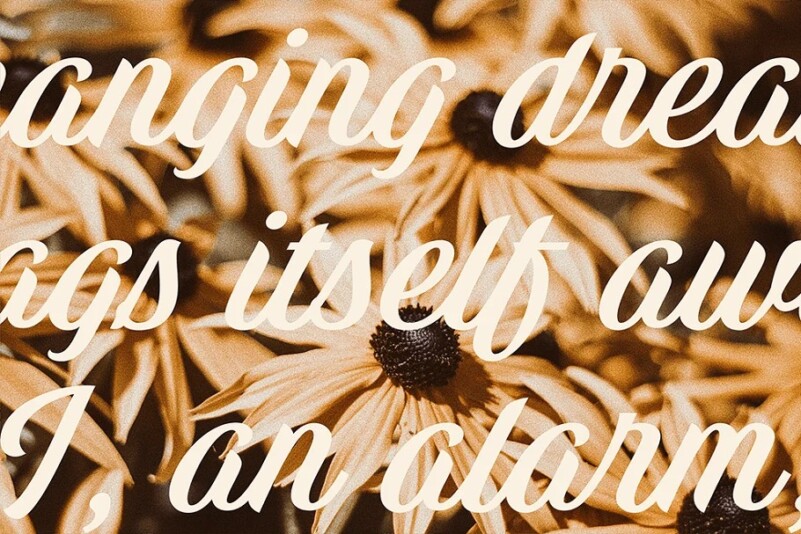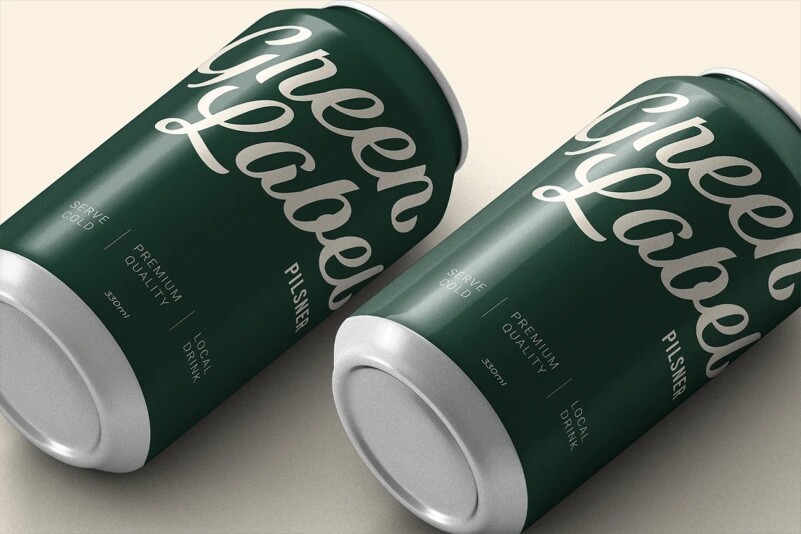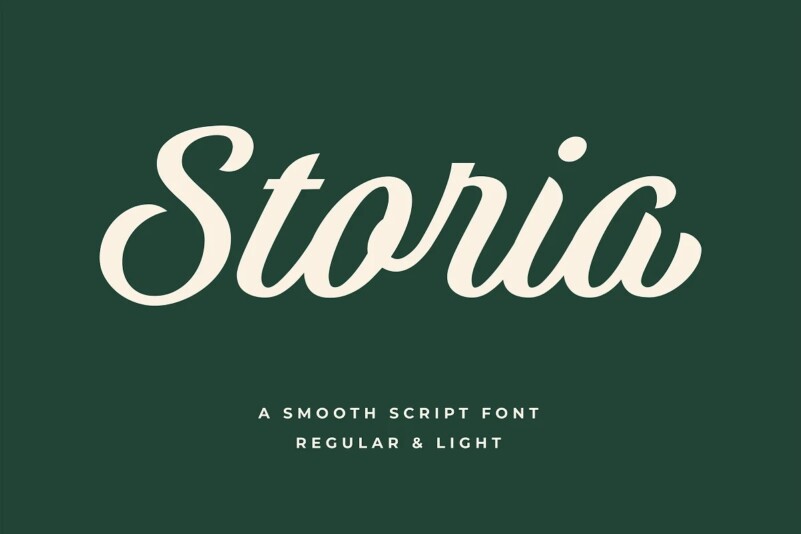
Storia Font
Storia is a contemporary script font inspired by a vintage script style. Storia has two weight options (regular & Light). Storia Perfect for branding, merch, ads, social media, packaging, and many more.